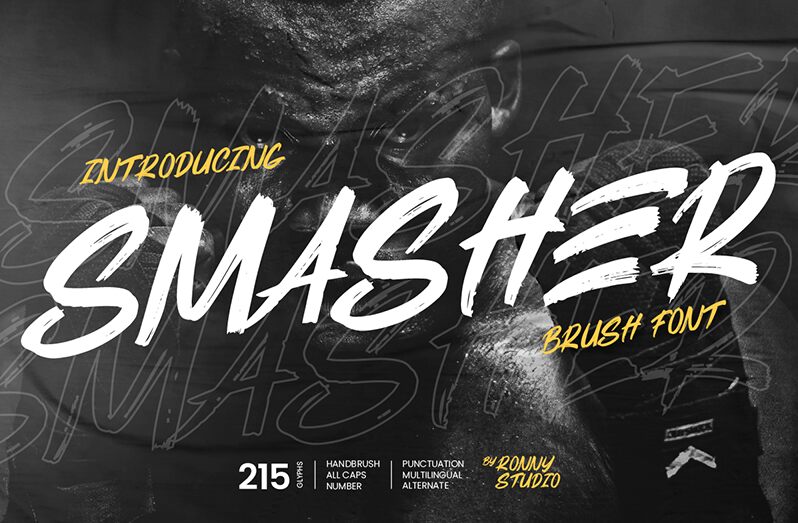
Smasher font, designed by Ronny Studio, captures the raw energy of brush lettering with its dynamic strokes and bold presence. Its expressive forms exude a playful yet powerful character, making it stand out in any design context. The dramatic script flows effortlessly, conveying both motion and spontaneity that can elevate creative projects.
This font's aesthetic appeal lies in its striking contrasts; the lighter touches meld beautifully with robust elements to create an engaging visual rhythm. Ideal for headlines, branding, or any design needing a touch of personality, Smasher infuses vibrant life into posters, merchandise, and social media graphics. Whether screaming for attention or whispering style through subtler applications, this font asserts itself as a versatile choice for imaginative storytellers looking to make an impact.